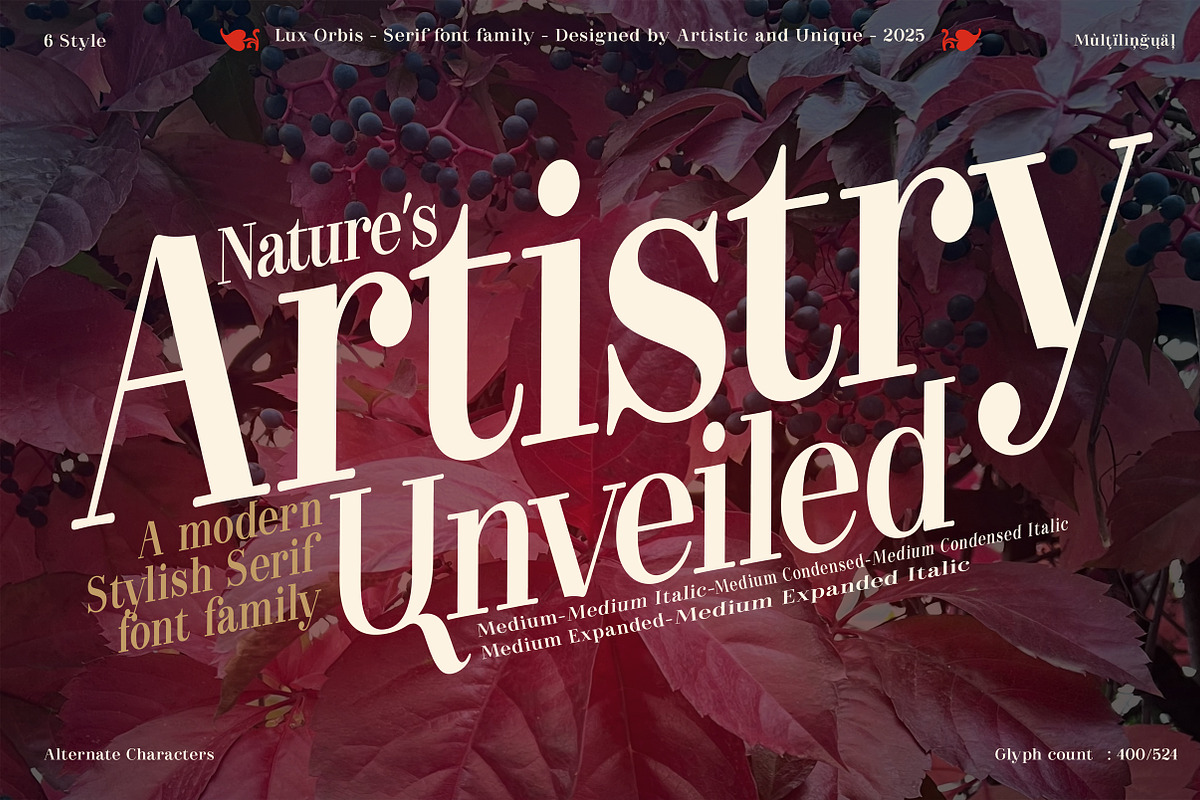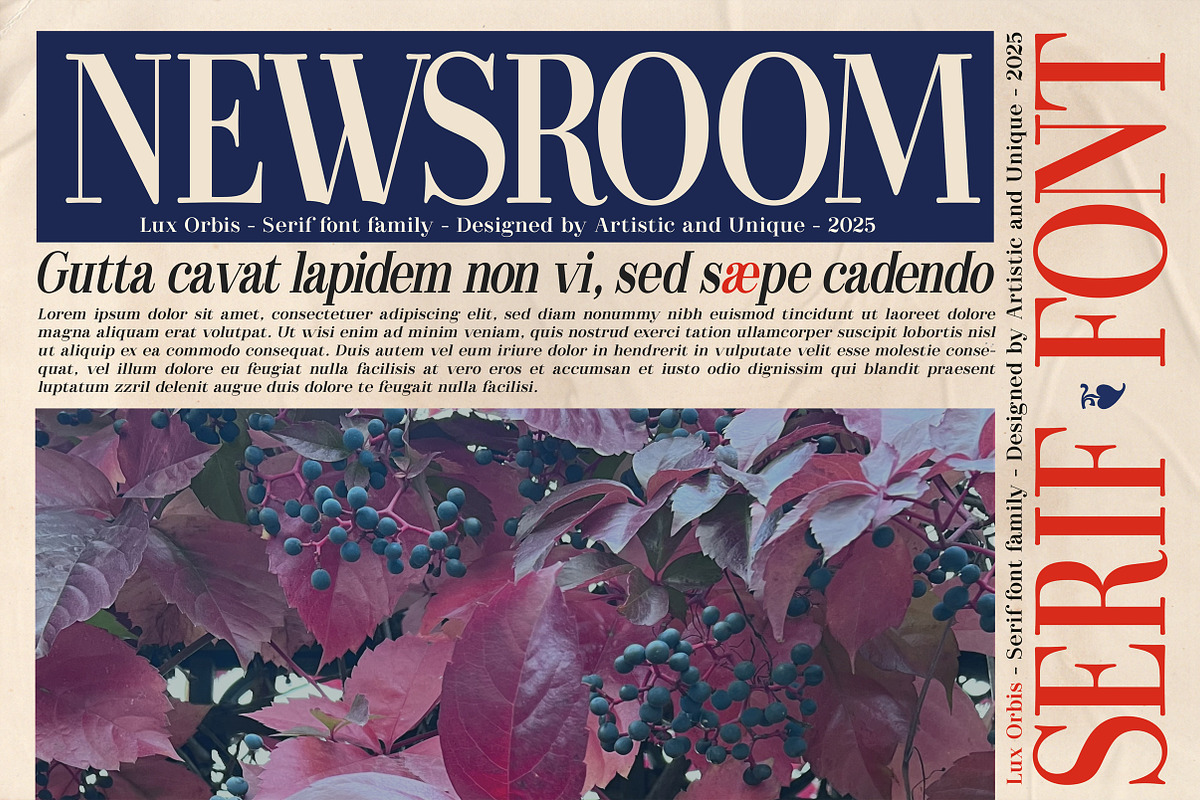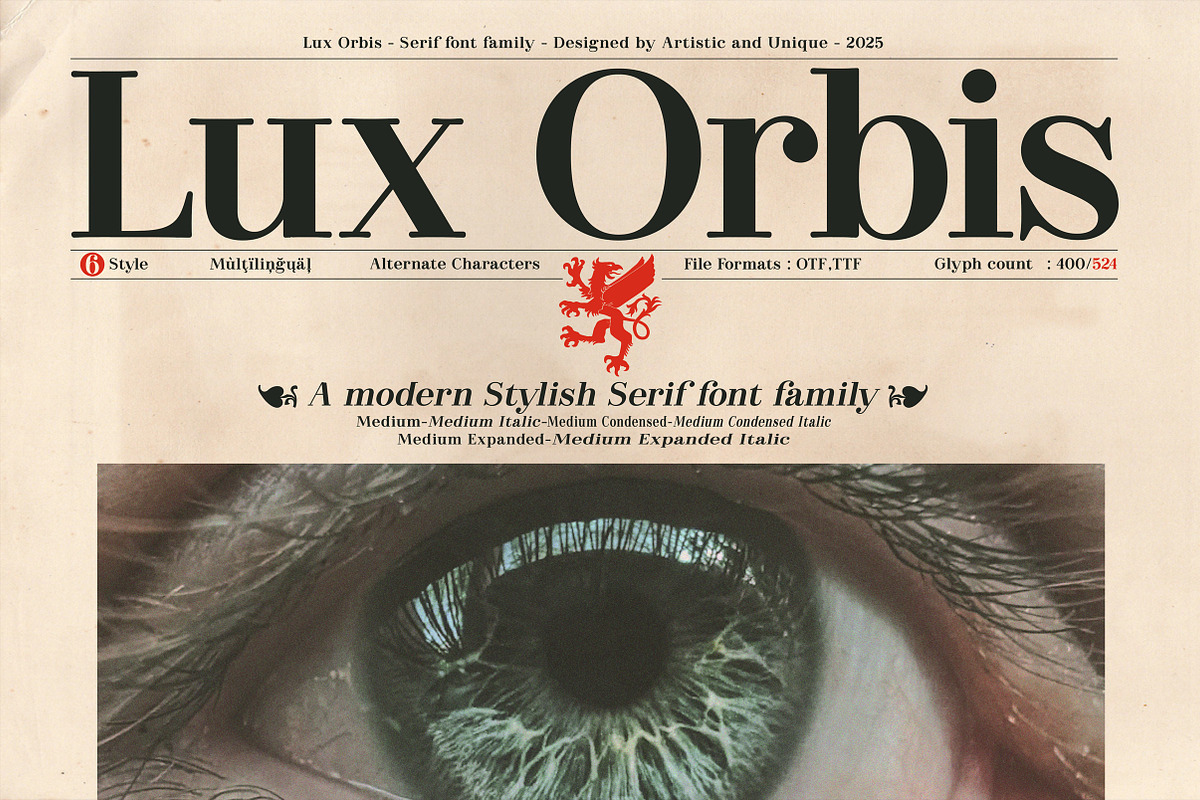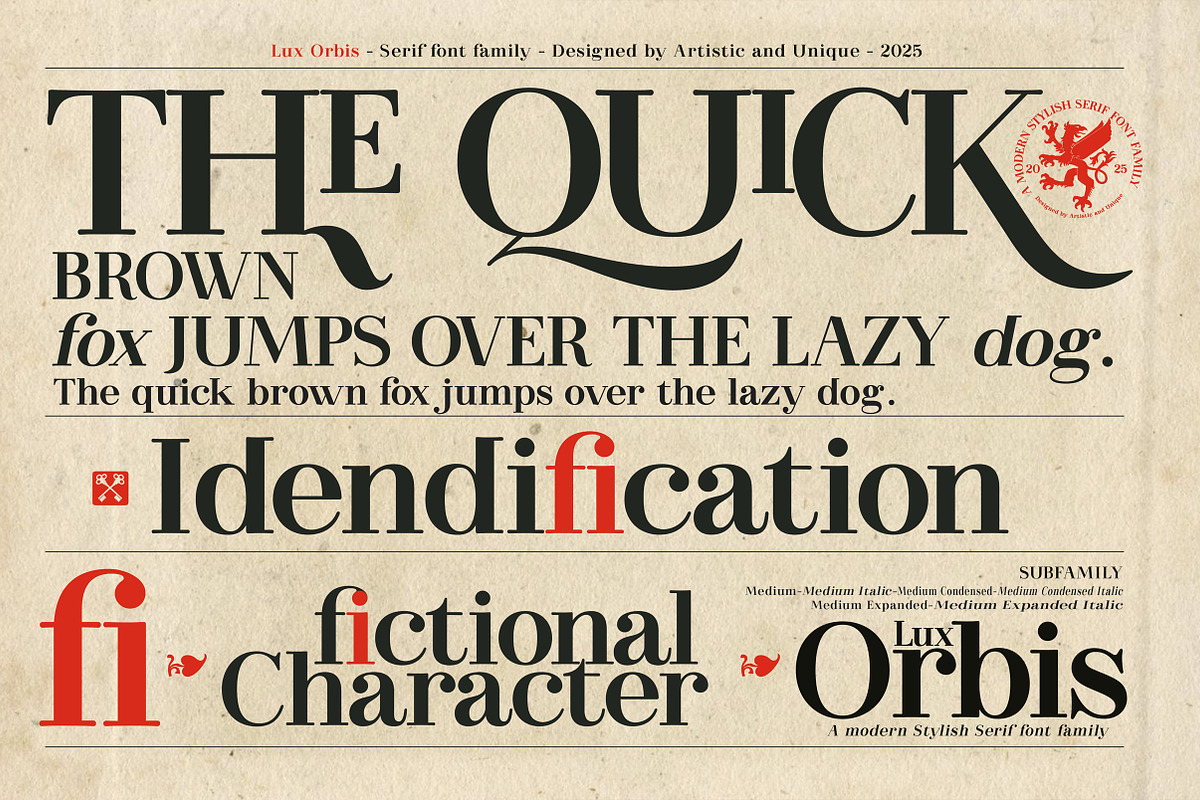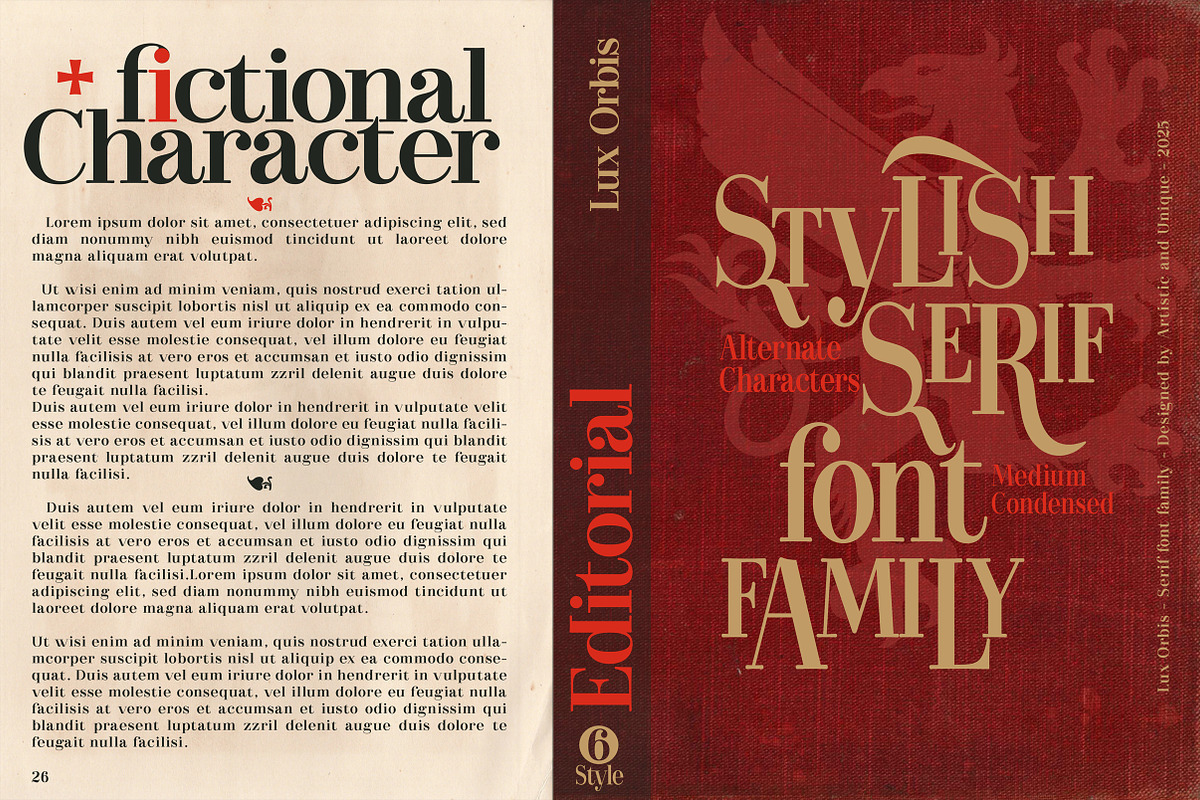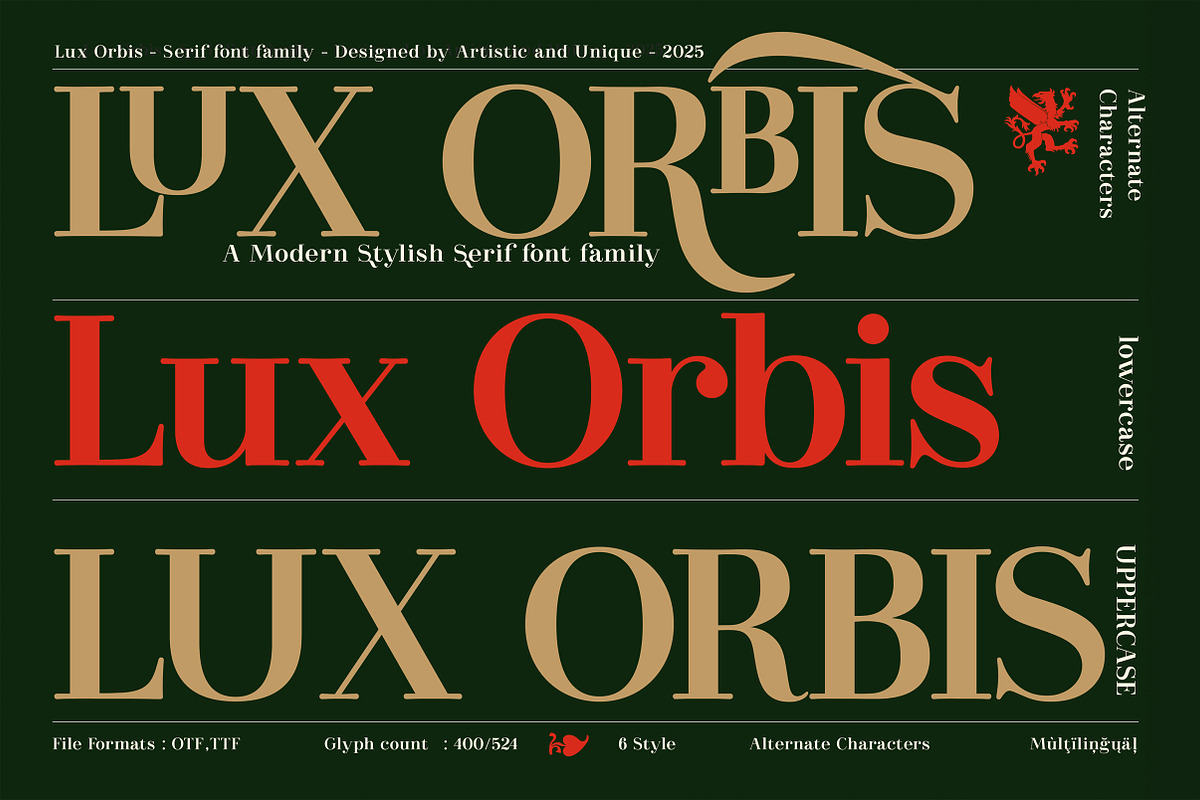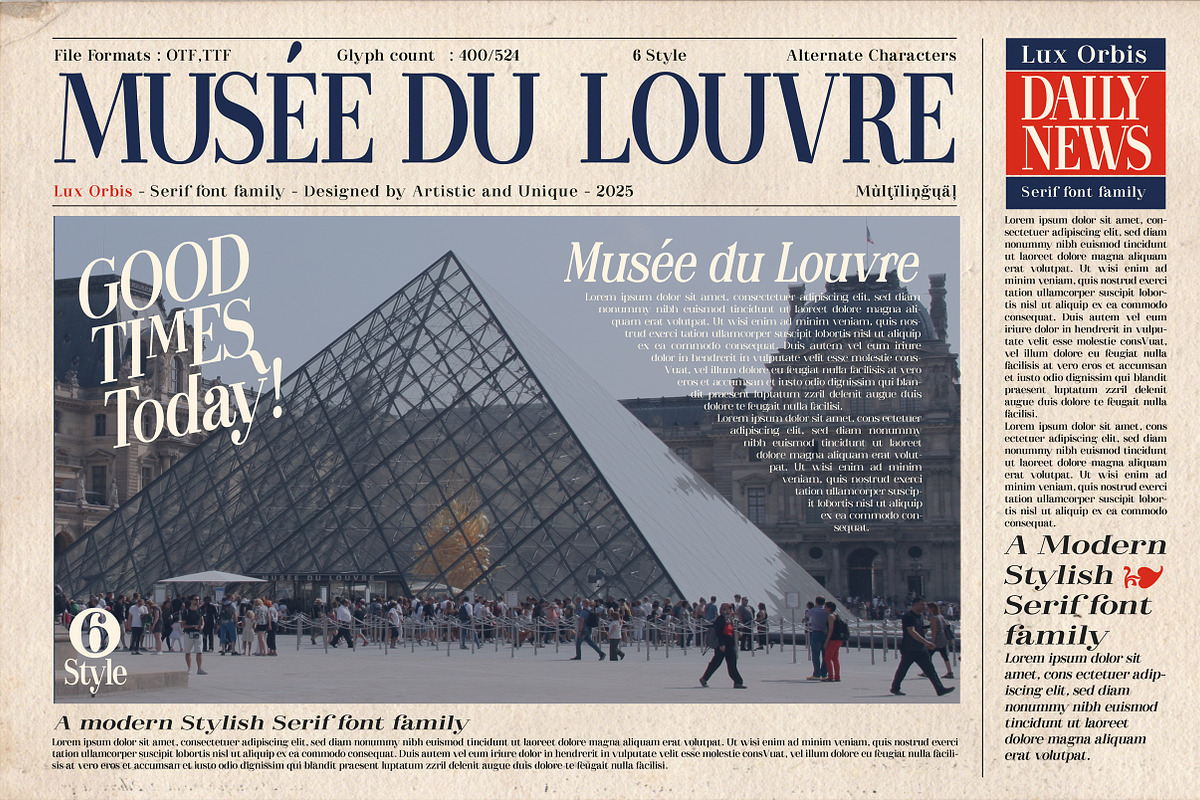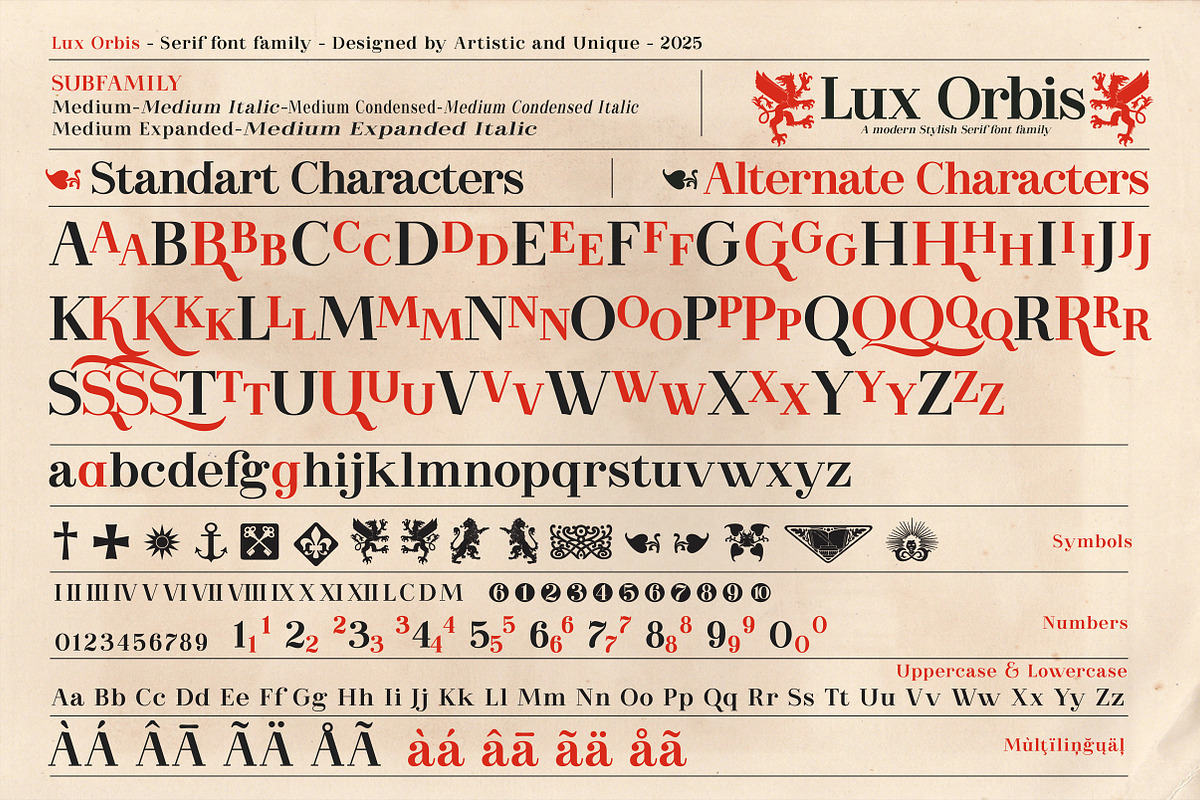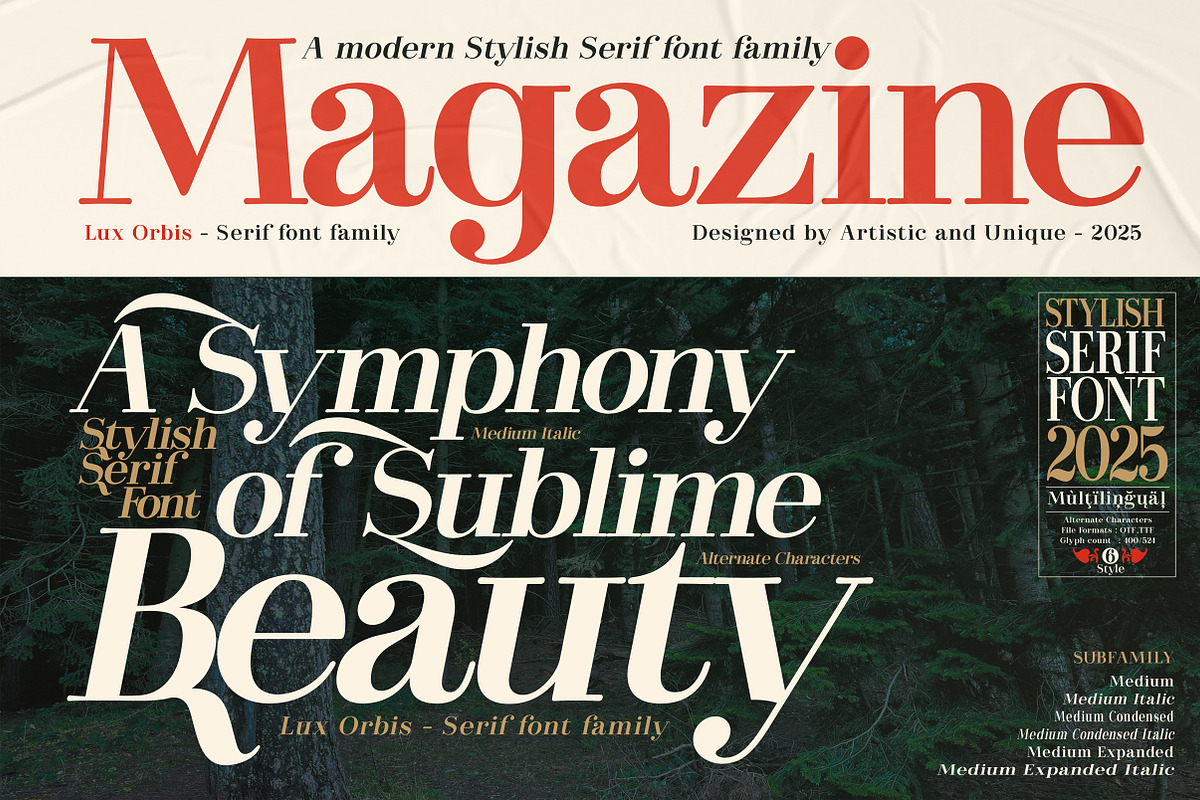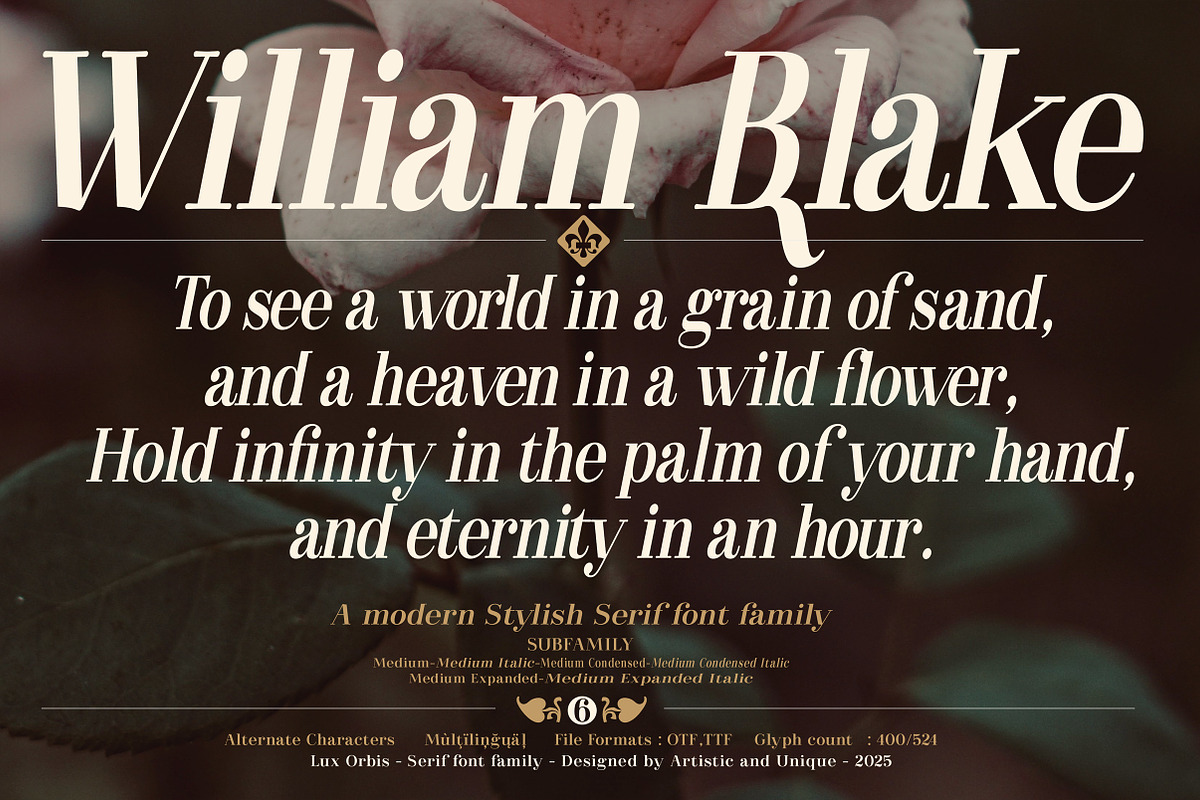
Lux Orbis - Serif font family
Lux Orbis - Serif font family - Multilingual Supports - 6 Style
Old style fonts have a beautiful and timeless aesthetic that can be used in a wide variety of design application situations.
Lux Orbis was inspired by the fonts used in the 1700s and 1800s. Lux Orbis, which aims to contribute to today's modern day serif fonts with its different nuances, is assertive in many areas with its elegant, versatile and timeless structure.
While its soft curves make it more elegant, it can have higher contrast with the use of large effective letters, while you can achieve effective looks with less contrast in the use of small - body text. Do not hesitate to apply them!
It also has the flexibility to allow stylish and decorative works with its alternative characters, additional symbols, and multilingual structure.
This font type is very suitable for your various needs with its elegant and powerful alternatives in all kinds of projects, including your branding projects, logos, luxury packaging product designs, editorial applications such as books, magazines and newspapers.
With all these features, it provides the advantage of use in many areas.
If you are looking for a versatile serif font, Lux Orbis can meet your needs.